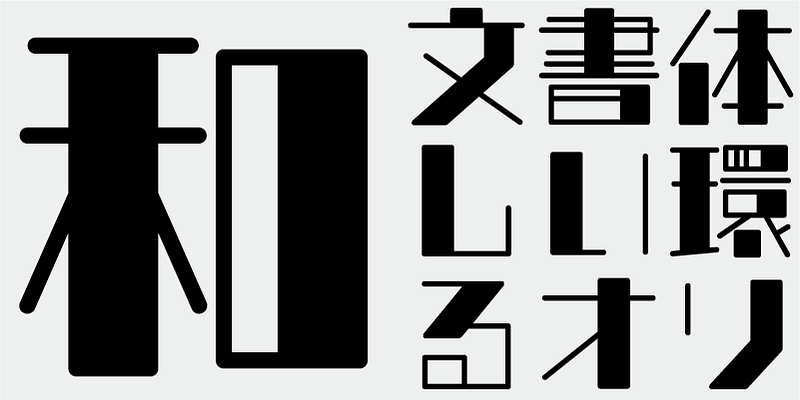
AB Tori A Font Free Download is a refined and modern Japanese display typeface that draws inspiration from the clean lines and architectural beauty of torii gates—symbols of tradition and transition in Japanese culture. With its minimalist design, balanced proportions, and subtle elegance, this font is ideal for branding, signage, editorial headlines, and projects that aim to blend cultural depth with contemporary style.
AB Tori A features crisp strokes, ample spacing, and a geometric yet approachable feel. Its simplicity allows it to shine in both traditional and modern contexts, making AB Tori A Font Free Download a versatile choice for designers looking to evoke both harmony and precision. It’s especially effective in large headings, logo designs, and bilingual layouts where Japanese characters must align seamlessly with Latin text.
Whether you're working on cultural publications, stylish product packaging, or a brand identity rooted in Japanese aesthetics, AB Tori A offers a clean and confident visual voice.